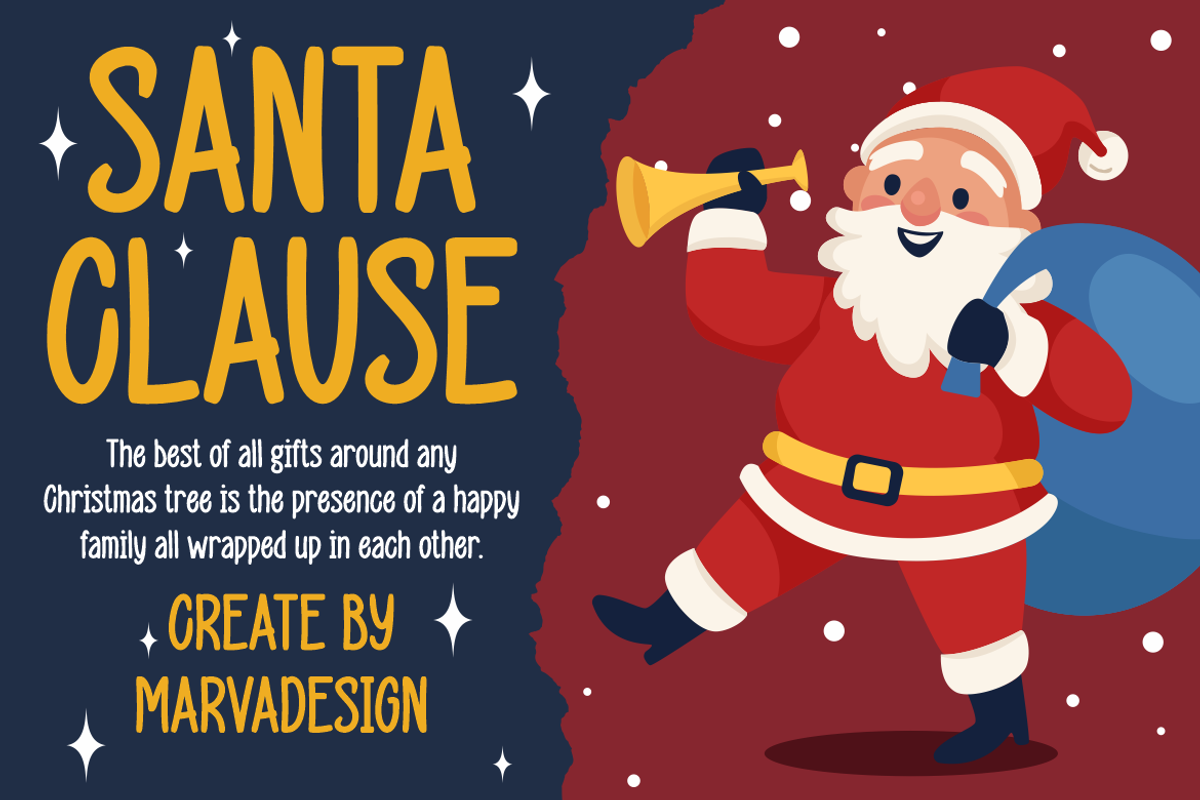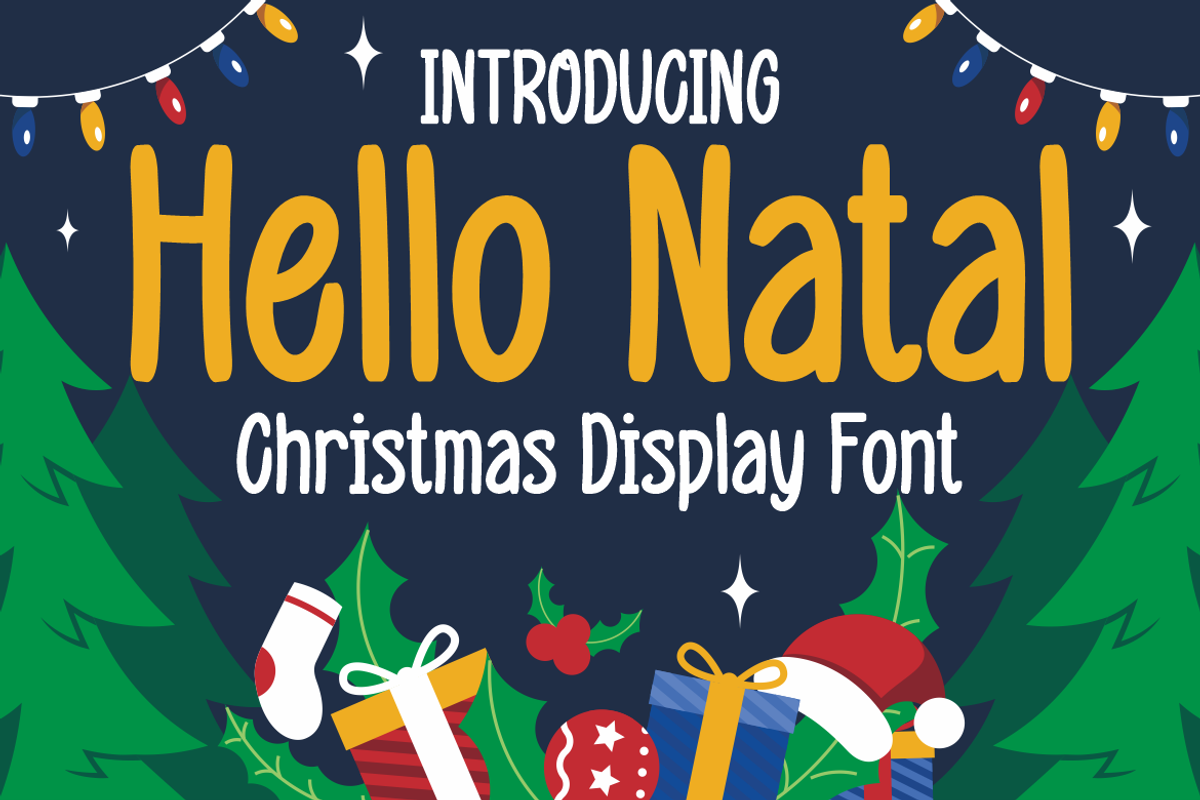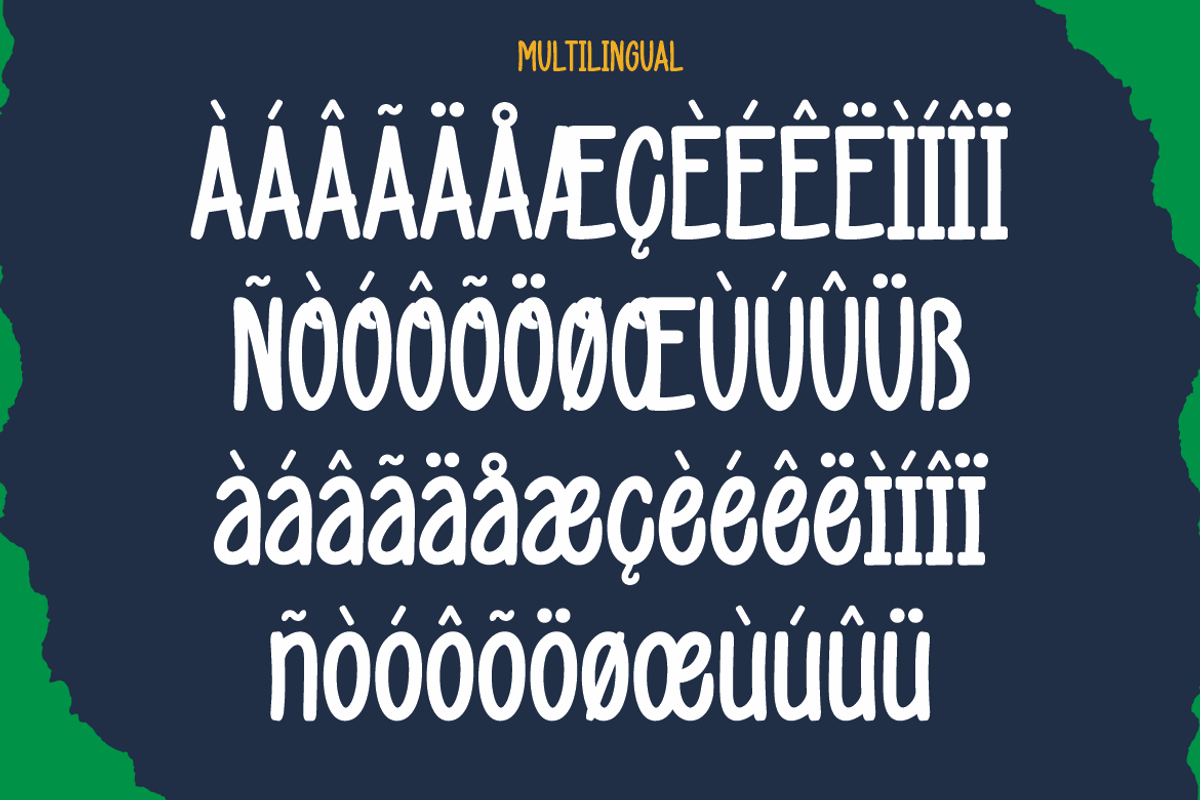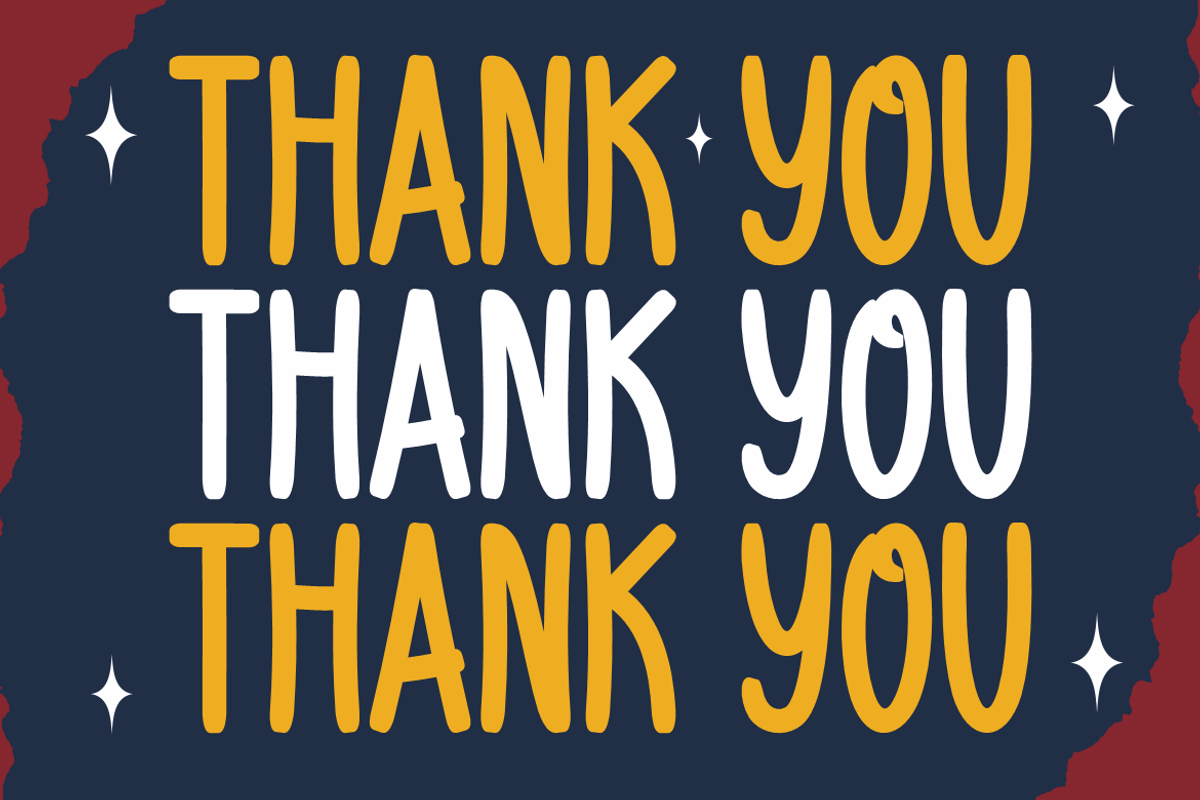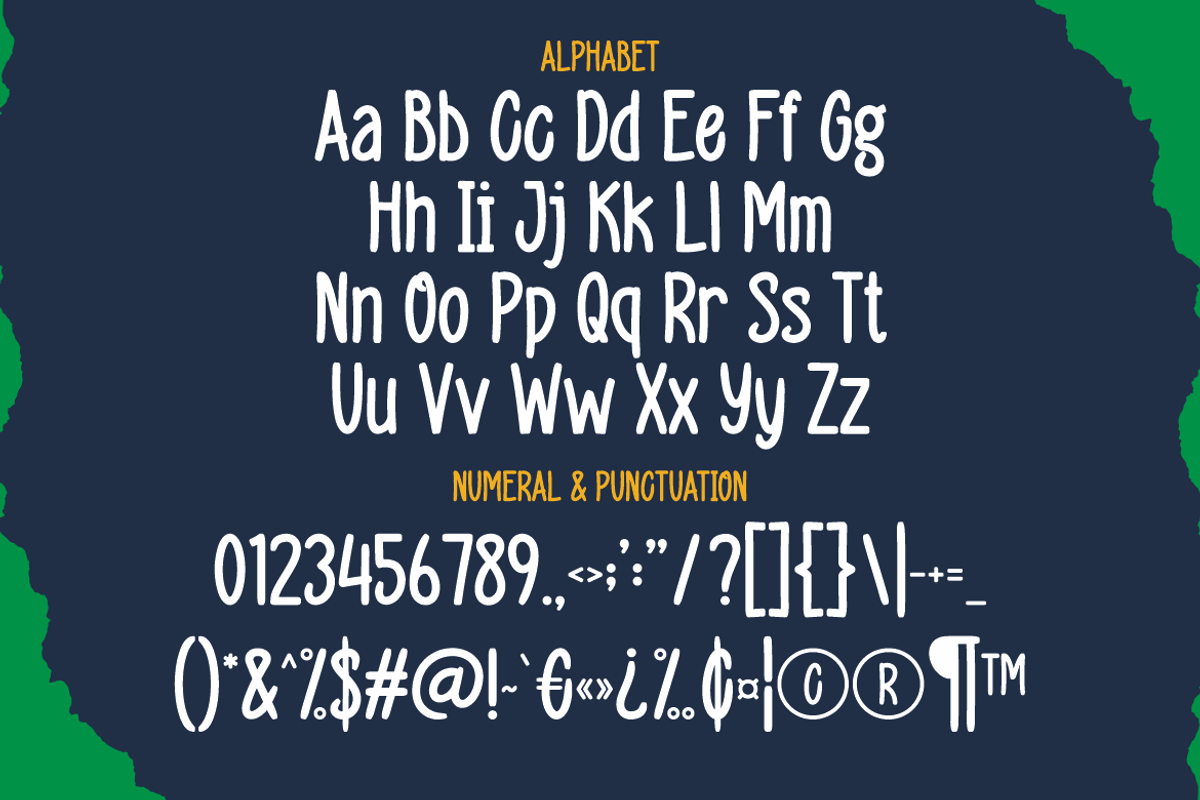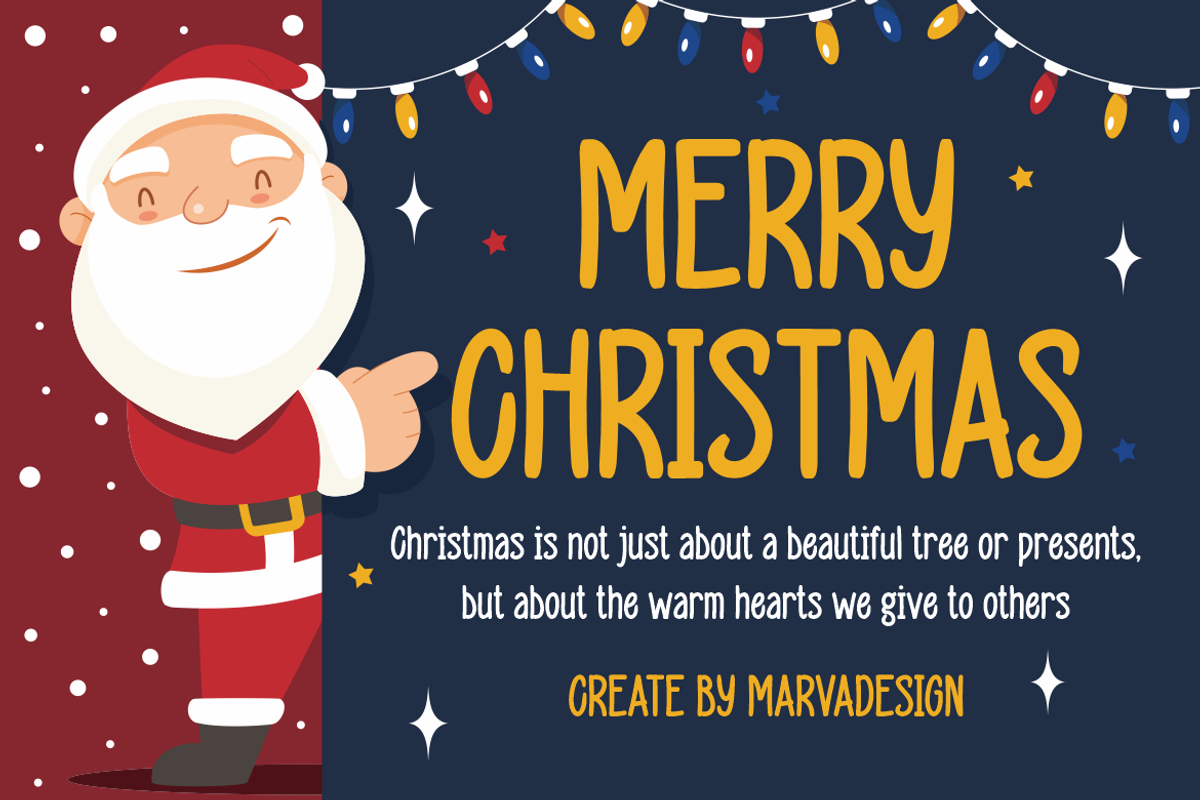
Hello Natal - A Modern Handwritten
Introducing our new product Hello Natal Font - A Modern Handwritten Christmas Font is a bold and authentic display font. The font is suitable for any branding project like logo, Template Design, Product and many more. outstanding in a wide range of contexts.